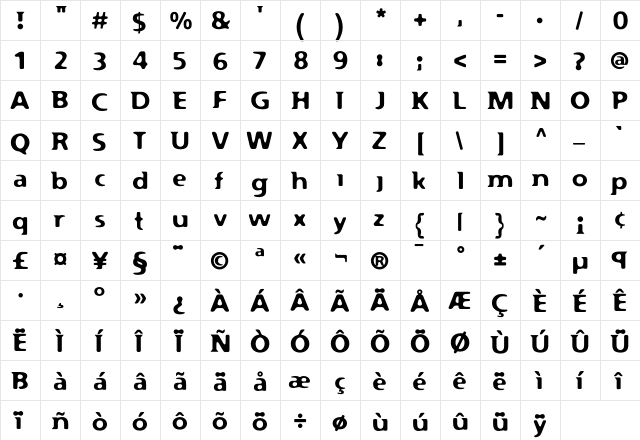
Flexure Regular
Design Context for Flexure Typeface
Flexure is a composed and adaptable typeface that performs quietly and consistently across a wide range of design contexts.